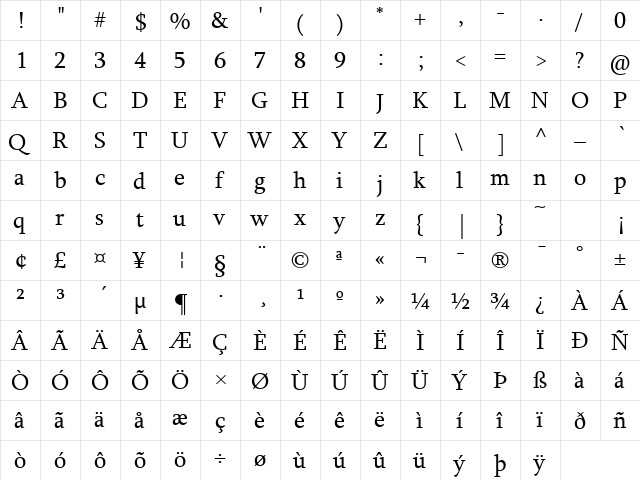
font242 Regular
| Foundry | Tiro Typeworks |
| Designer | John Hudson/Geraldine Wade |
Design Context for font242 Typeface
font242 is a composed and adaptable typeface that performs quietly and consistently across a wide range of design contexts.